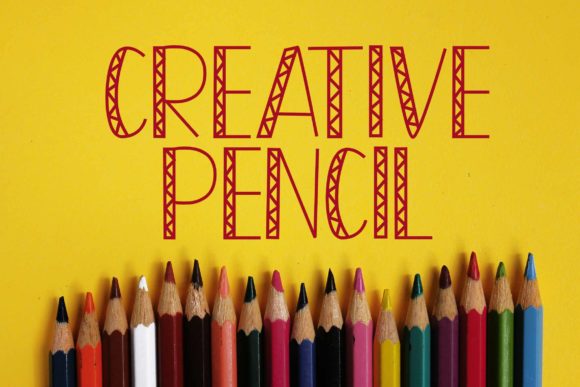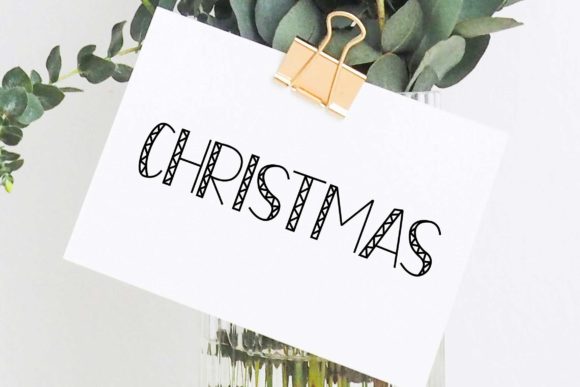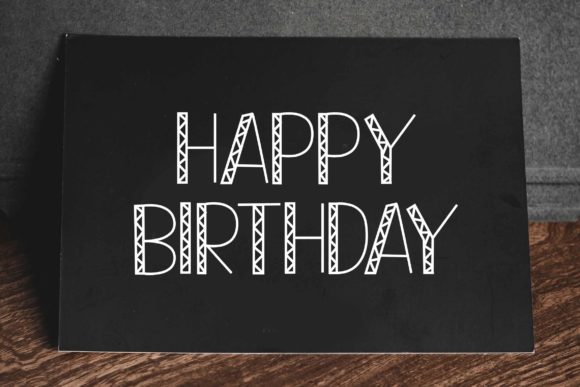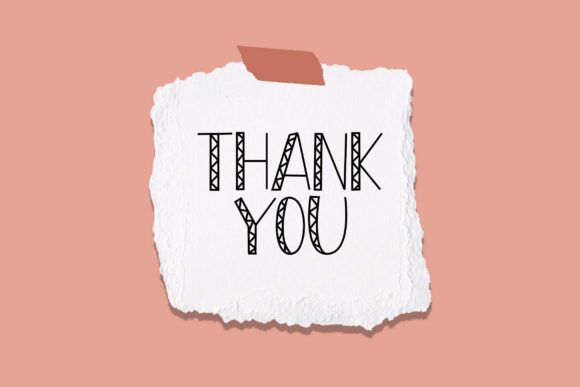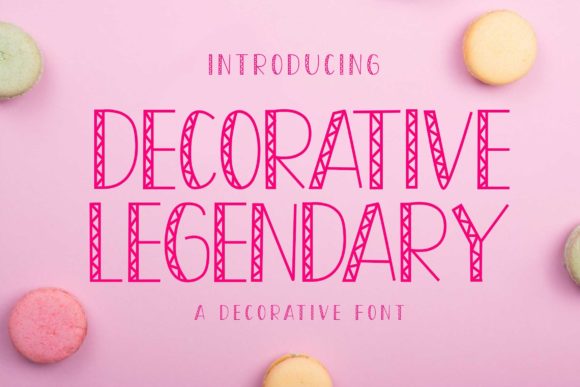
Unleash Your Creativity with Decorative Legendary Font
Are you tired of using the same old fonts for your designs? Do you want to add a touch of uniqueness and personality to your work? Look no further than the Decorative Legendary Font. This cool and adaptable decorative font is perfect for designers and crafters who want to take their work to the next level.
What is Decorative Legendary Font?
Decorative Legendary Font is a stylish and versatile font that can be used for a wide range of design projects. Whether you’re creating a website, designing business cards, or crafting social media graphics, this font is sure to make your work stand out. Its unique and decorative style makes it perfect for adding a touch of elegance and sophistication to any design.
Key Features of Decorative Legendary Font
• Unique and Decorative Style: The Decorative Legendary Font has a one-of-a-kind style that will add a touch of personality to any design.
• Adaptable: This font is highly adaptable and can be used for a wide range of design projects, from web designs to print materials.
• Elegant and Sophisticated: The font’s elegant and sophisticated style makes it perfect for designs that require a touch of luxury and refinement.
• Easily Readable: Despite its decorative style, the font is easily readable, making it perfect for use in body text and headlines.
Why Use Decorative Legendary Font?
There are many reasons why designers and crafters should consider using the Decorative Legendary Font in their work. Here are just a few:
• Adds a Touch of Uniqueness: The font’s unique style will add a touch of personality to any design, setting it apart from the rest.
• Versatile: The font can be used for a wide range of design projects, making it a great addition to any designer’s toolkit.
• High-Quality: The font is of high quality, ensuring that it will look great in any design.
Design Ideas Using Decorative Legendary Font
The Decorative Legendary Font can be used for a wide range of design projects. Here are a few ideas to get you started:
• Web Designs: Use the font to add a touch of elegance and sophistication to your website.
• Business Cards: Add a touch of personality to your business cards with this unique font.
• Social Media Graphics: Use the font to create eye-catching social media graphics that will stand out from the crowd.
• Logos: The font’s unique style makes it perfect for use in logos and branding materials.
The Decorative Legendary Font is a cool and adaptable decorative font that is perfect for designers and crafters who want to add a touch of uniqueness and personality to their work. With its elegant and sophisticated style, this font is sure to make any design stand out. Whether you’re creating web designs, business cards, or social media graphics, this font is a great choice. So why wait? Download the Decorative Legendary Font today and start taking your designs to the next level.